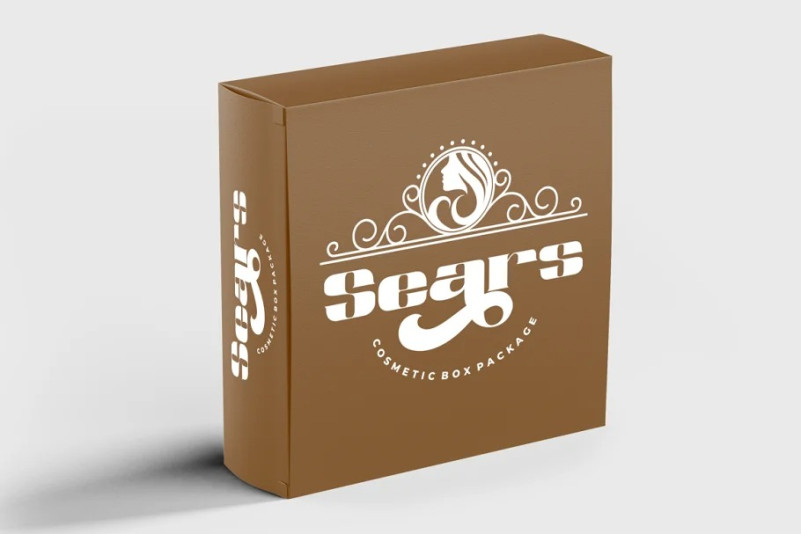
Reske Wuite Font
Introducing the new Reske Wuite Serif Font !! Reske Wuite is a elegant and classy serif typeface. Reske Wuite Font is a very versatile serif font. you can use this font to various design & Reske Wuite inspired by elegant and luxury typography.
Reske Wuite is perfect for a professional touch which makes it to form unique & elegant typography designs. Reske Wuite is perfect for headings, flyer, greeting cards, product packaging, book cover, printed quotes, logotype, apparel design, album covers, etc.
The alternative characters were divided into several Open Type features such as Swash, Stylistic Sets, Stylistic Alternates, Contextual Alternates, and Ligature. The Open Type features can be accessed by using Open Type savvy programs such as Adobe Illustrator, Adobe InDesign, Adobe Photoshop Corel Draw X version, And Microsoft Word. This font is also support multi language.